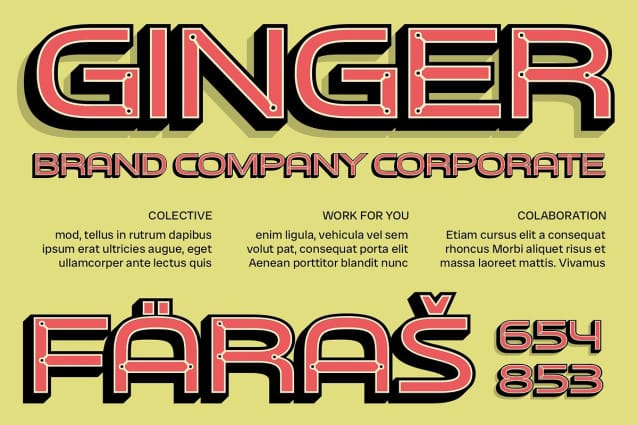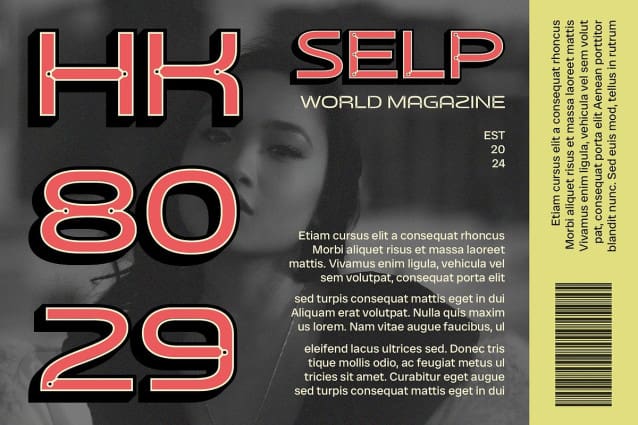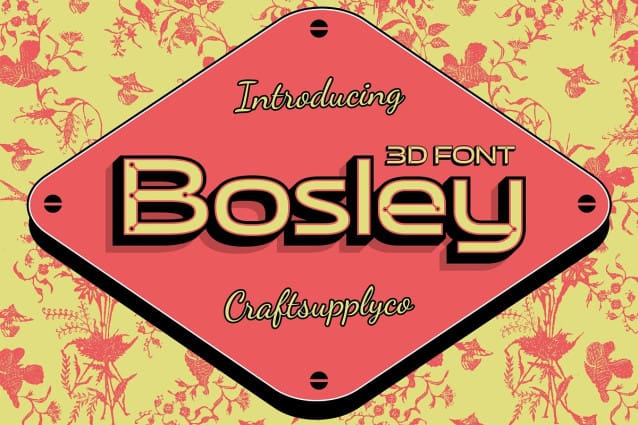
CS Bosley 3D Font
CS Bosley 3D Font is a sans-serif font with inktrap shapes. Suitable for designs aiming to present text with a unique and engaging character, this font adds a distinct and memorable look to your projects.
Ideal for Captivating Designs Perfect for headlines, banners, and other display purposes, CS Bosley 3D ensures your message is both seen and remembered. Its sans-serif style, combined with inktrap shapes, makes it a compelling choice for designs seeking to create a unique and engaging impression.
Versatile and Distinctive Despite its unique appearance, this font remains versatile and distinctive. Its font format makes it suitable for a wide range of projects, from branding to digital designs, where a font that stands out is essential for making a statement.
Perfect for Adding a Unique Touch CS Bosley 3D is ideal for projects requiring a font with a unique touch. Whether you’re designing a poster, logo, or website, this font will undoubtedly add a distinct and memorable element to your designs.